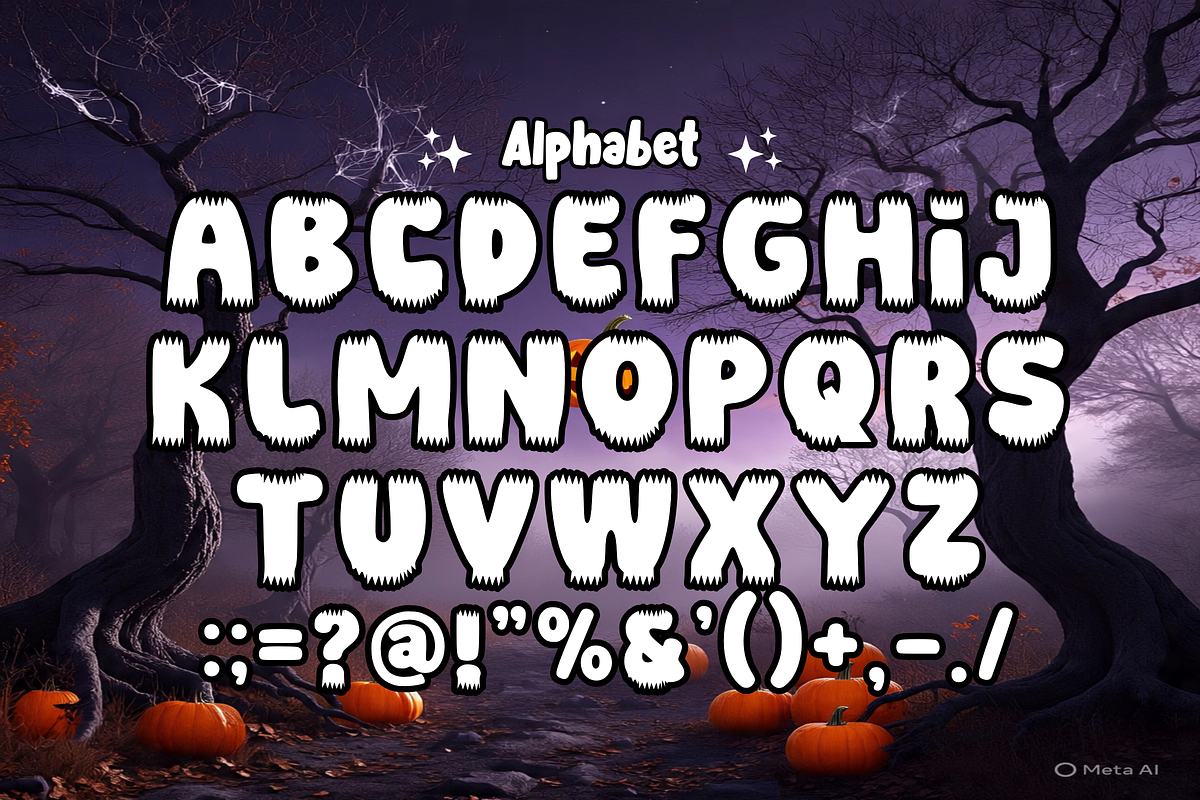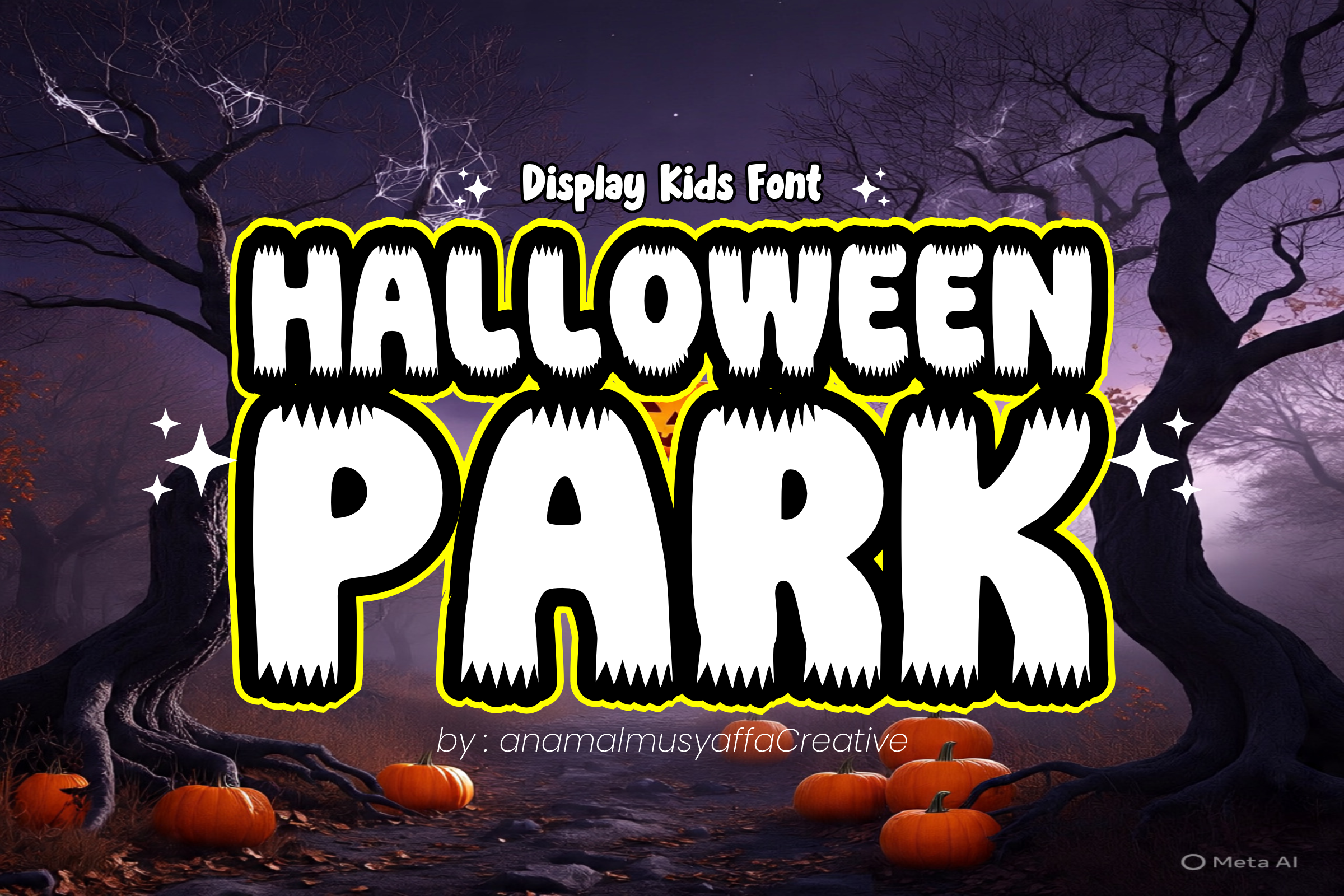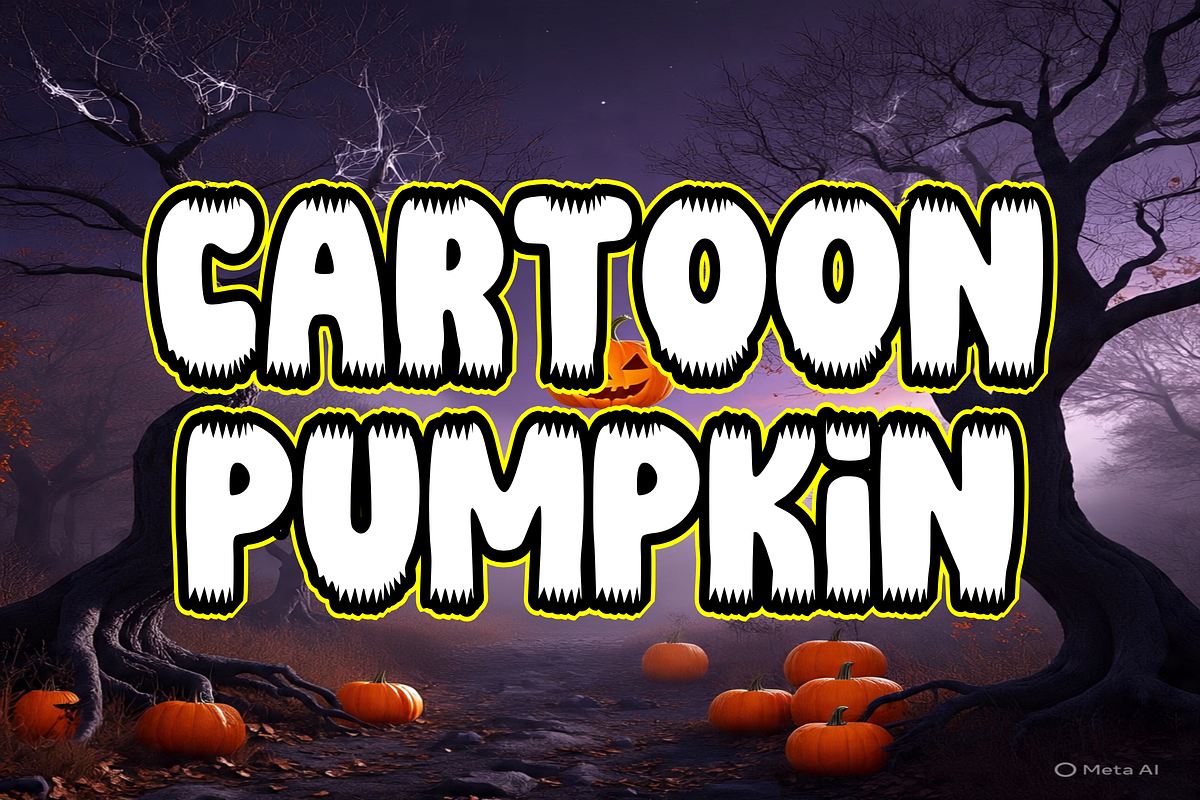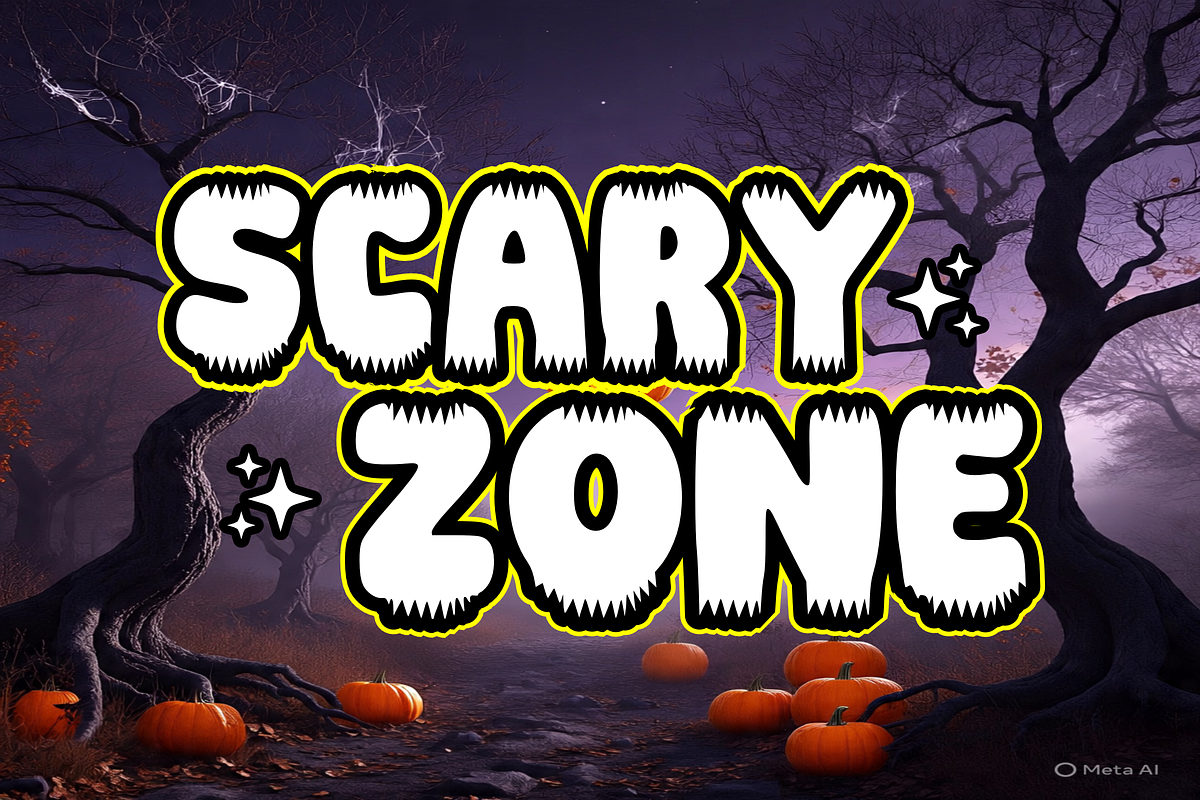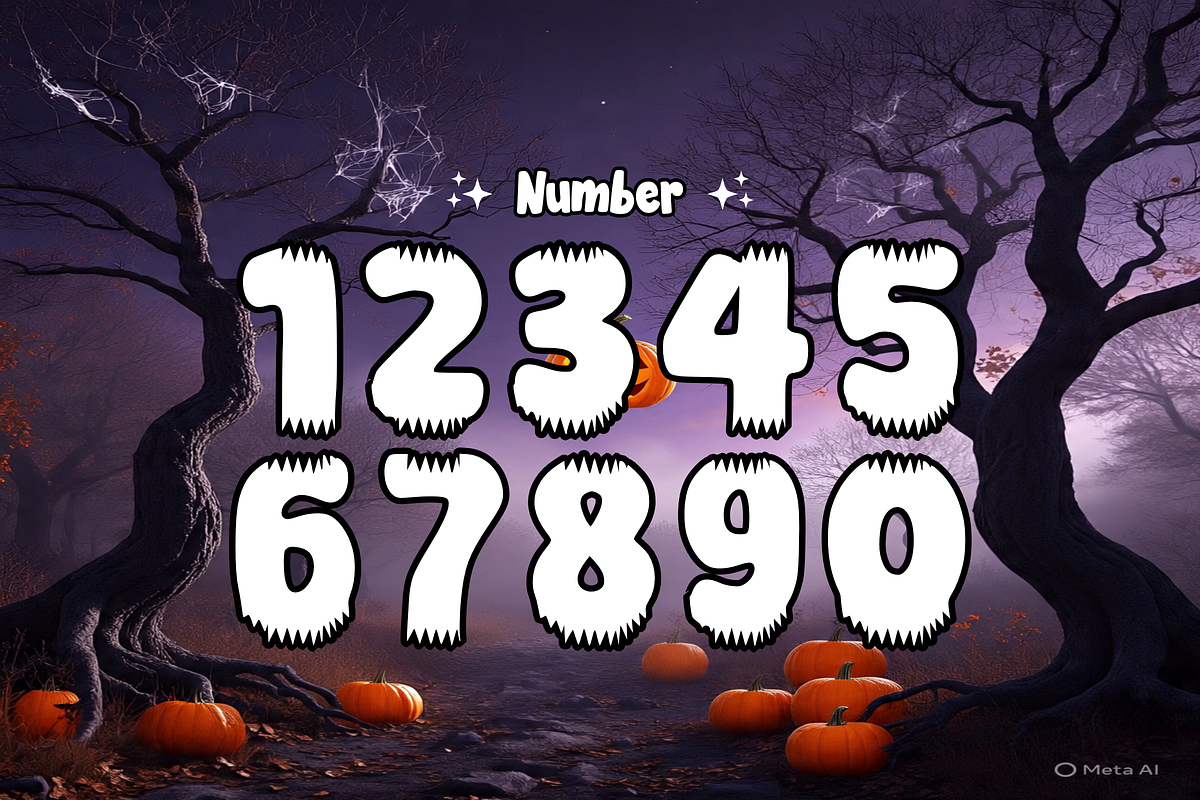
Halloween Park - Display Font
🎃 Halloween Park - Spooky & Fun Playful Font 👻 Get ready for the spooky season with Halloween Park! This font is the perfect blend of "spooky" and "sweet," featuring bold, chunky characters with a playful, bubbly energy. Designed with a clean "sticker-style" outline, it captures the fun atmosphere of a haunted theme park or a night of trick-or-treating.
Whether you're making spooky invitations or festive classroom decor, Halloween Park makes every headline look frightfully delightful!
🧛♂️ Key Features: 🦇 Bold Uppercase: Chunky, hand-drawn letters with a friendly "monster" vibe.
🔢 Numbers 0-9: Matching spooky numerals for dates, countdowns, and prices.
🍭 Simple Symbols: Essential punctuation to add treats to your messages.
✂️ Sticker Ready: Smooth, thick outlines optimized for vinyl cutting (Cricut/Silhouette) and printing.